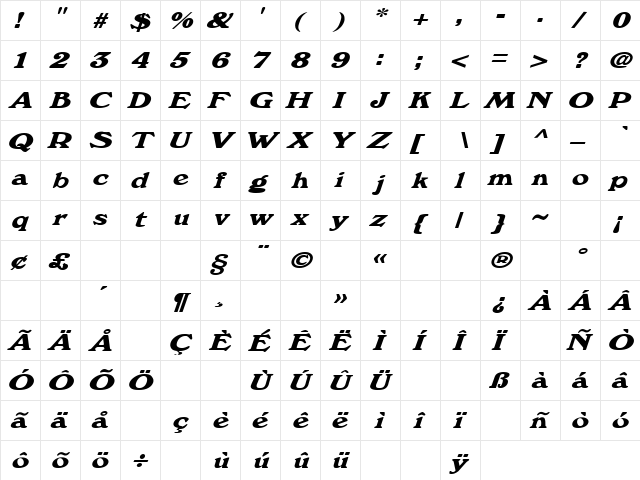
Unemployment 3 Regular
Design Context for Unemployment 3 Typeface
Unemployment 3 offers clean, dependable letterforms without strong stylistic allegiance, making it a practical choice for designers who need flexibility.